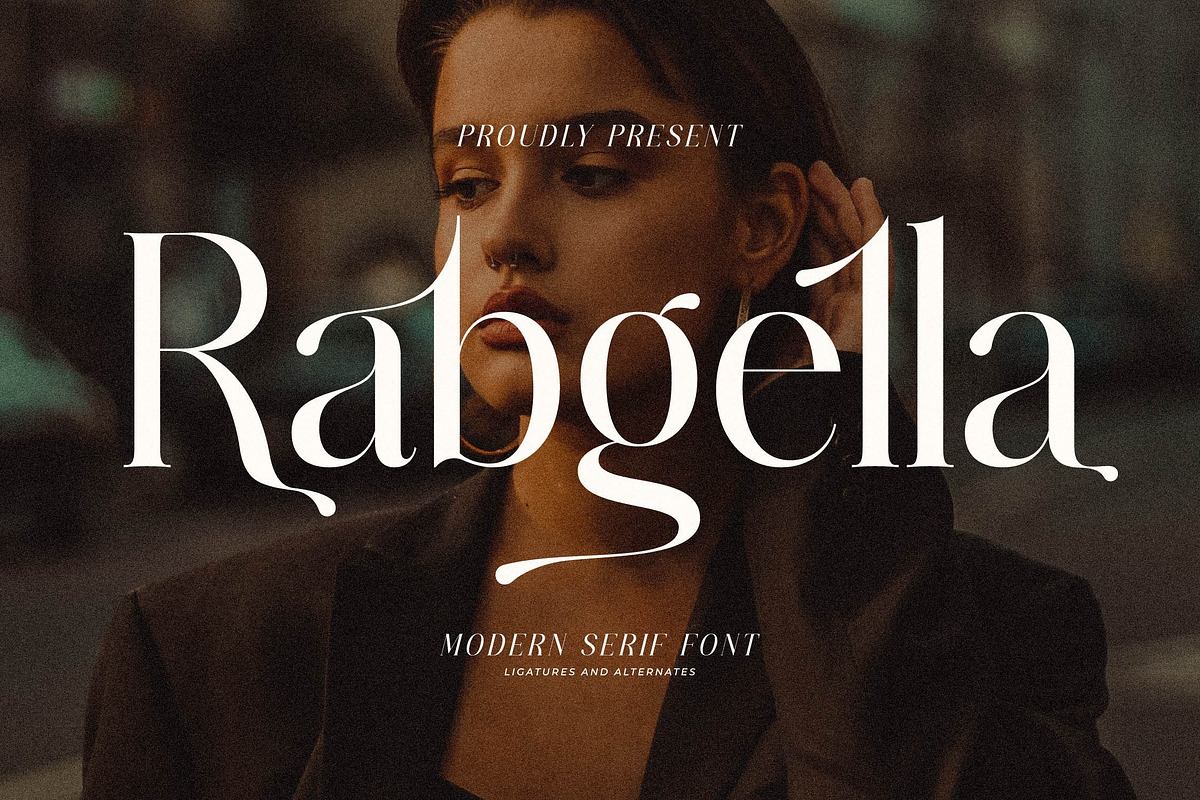
Rabgella Modern Serif Font Free Download
The Rabgella Modern Serif Font Free Download is a stylish and sophisticated typeface designed to add elegance and refinement to any project. With its high contrast strokes, sharp serifs, and graceful curves, Rabgella is ideal for luxury branding, editorial layouts, wedding stationery, fashion magazines, and upscale product packaging.
This font blends classic serif charm with a modern flair, making it versatile for both digital and print use. It features a range of stylistic alternates, ligatures, and multilingual support, giving you all the tools needed to craft visually stunning typography.